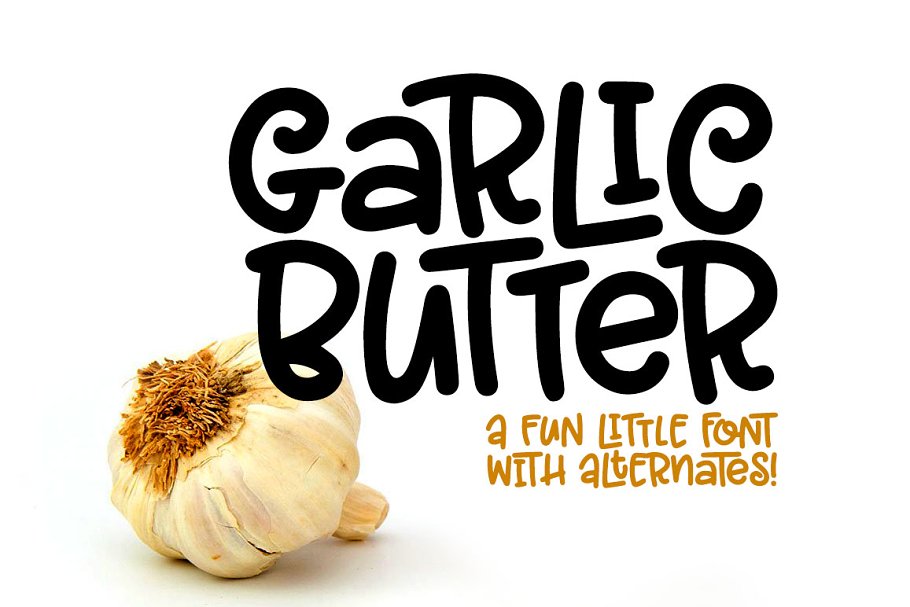
Looking for the perfect font to spice up your designs? Look no further than Garlic Butter, the tasty and fun font family created by Missy Meyer!
With its smooth curves, cute characters, and playful personality, Garlic Butter is sure to add a dash of flavor to any project. And with over 300 accented characters, 150 ligatures and alternate letters, and even a set of doodads full of swirls, swashes, icons, and catchwords, the possibilities for customization and creativity are endless.
But Garlic Butter isn't just about looks - it's also incredibly versatile, with full support for over 300 extended Latin characters and fully PUA-encoding for access to all characters. And for those who love ligatures, Garlic Butter has you covered, with over 120 extra 2-, 3-, and 4-letter ligatures, as well as 15 uppercase and 15 lowercase double-letter ligatures.
Whether you're looking to add a touch of whimsy to your branding, create eye-catching headlines, or just have some fun with your designs, Garlic Butter is the perfect choice. So why wait? Download Garlic Butter today and add a little flavor to your life!